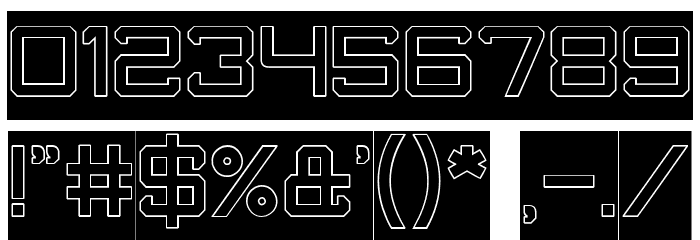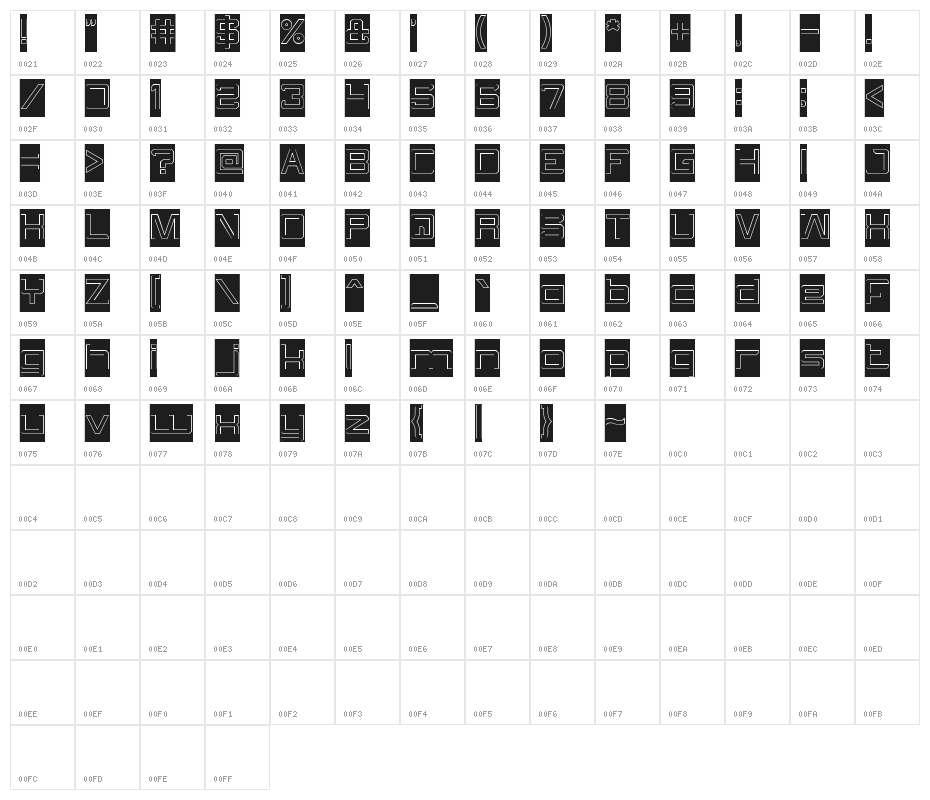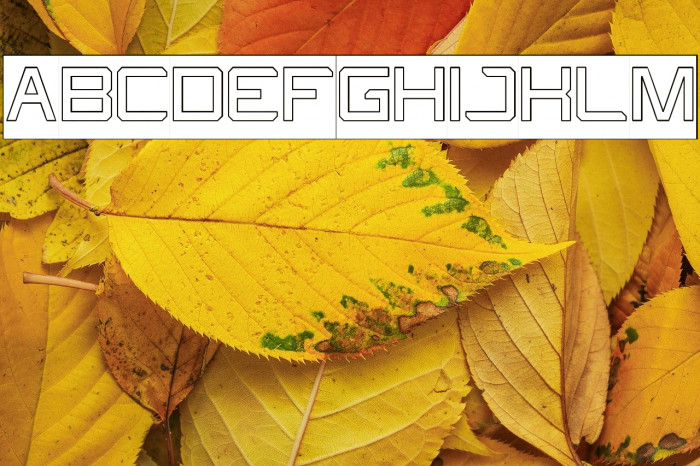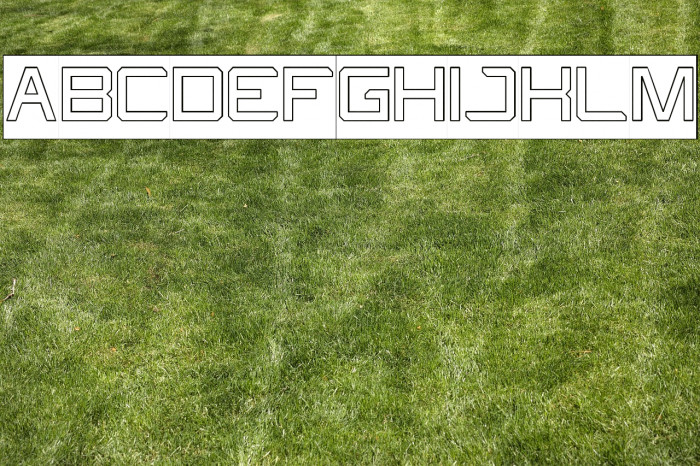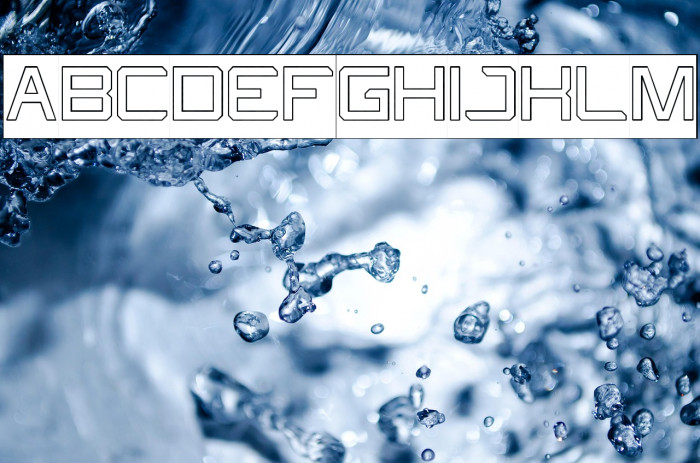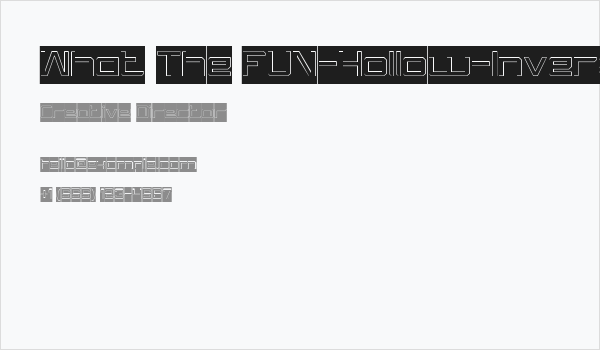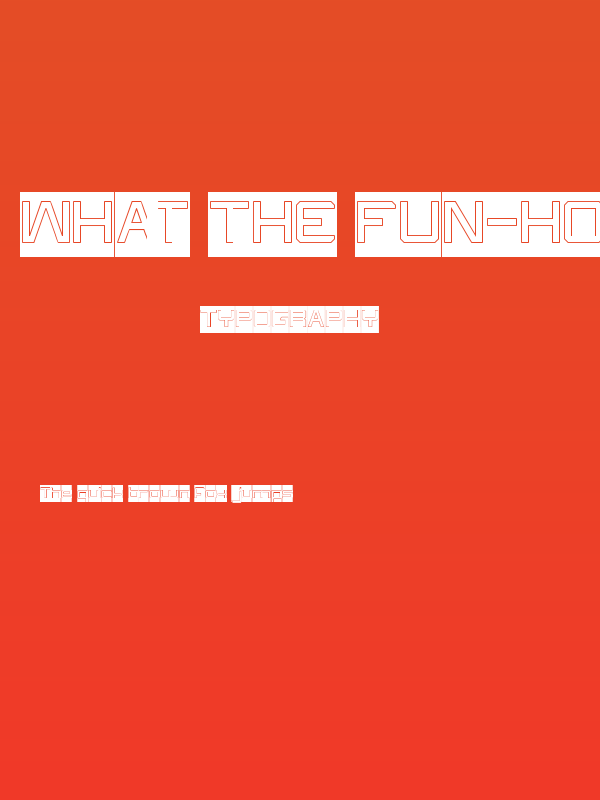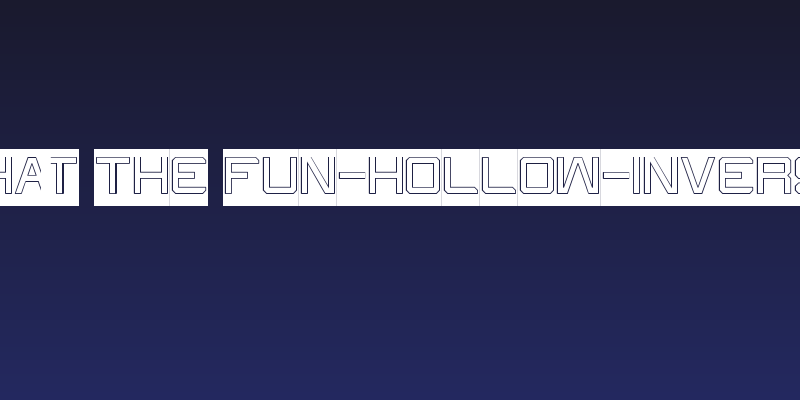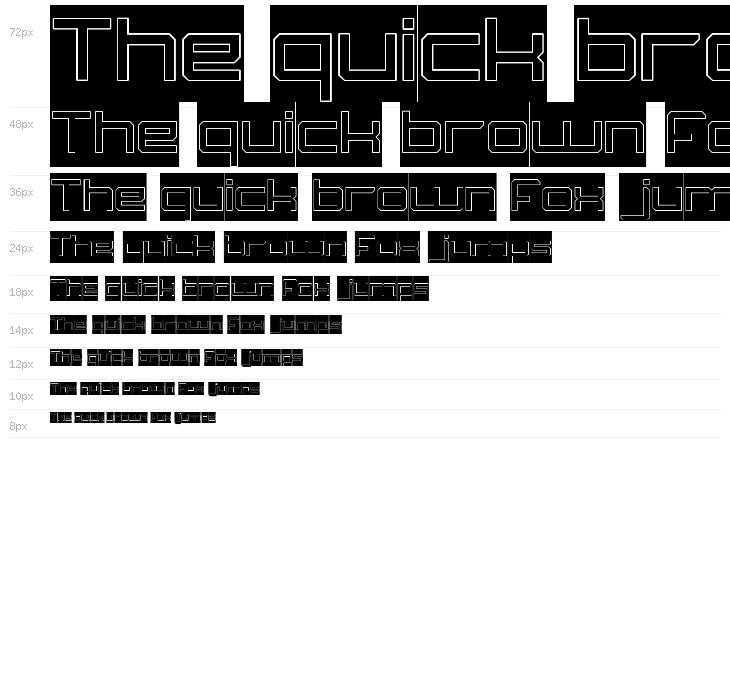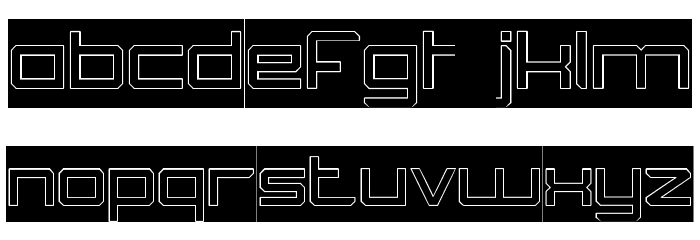
What The FUN-Hollow-Inverse Font
What The FUN-Hollow-Inverse Description
This font features a hollow, inverse style with a modern and geometric aesthetic. The characters are outlined with a consistent stroke width, creating a bold and eye-catching appearance. The uppercase and lowercase letters maintain a uniform height, contributing to a cohesive look. Numbers and special characters follow the same design principles, ensuring versatility across various applications. The font's structured and angular design makes it suitable for projects that require a futuristic or tech-inspired theme. Its unique hollow effect adds depth and dimension, making it stand out in digital and print media.
| Proposed Projects | Ideal for tech-themed designs, digital artwork, posters, and branding materials. |